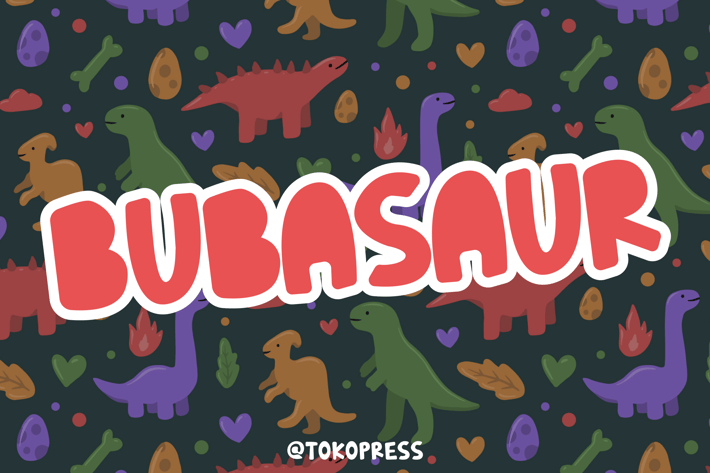
BUBASAUR - Kids Font
Bubasaur - Kids Font
BUBASAUR is a playful dinosaur-inspired cartoon font with bold curves, bubbly proportions, and a chunky visual rhythm that instantly grabs attention in kids-focused designs. Designed with soft outlines and a bouncy baseline, its expressive style fits perfectly in storytelling, children's branding, or quirky illustrations. The vibe is fun, approachable, and full of personality—making it a go-to choice for designers who want a whimsical edge.
Whether you're crafting a children’s book, launching a fun mobile app, creating educational content, or designing social media posts for toy brands—BUBASAUR brings energy and friendliness to every word. With its easy readability and engaging shapes, it’s especially loved in the world of kid-friendly branding, YouTube thumbnails, playful packaging, or early learning games. The font’s joyful tone appeals to both young audiences and design professionals looking to create emotional connection.
Key Features
Boldly Playful, Readably Fun
- Chunky, cartoon-inspired letterforms with soft edges
- Designed for high legibility with a joyful, bouncy baseline
- Ideal for loud, expressive titles that still feel friendly
Versatile for Multiple Creative Markets
- Perfect for branding, kids games, poster art, product labels, or YouTube covers
- Eye-catching yet simple enough to work across platforms
* Optimized for Creative Flow